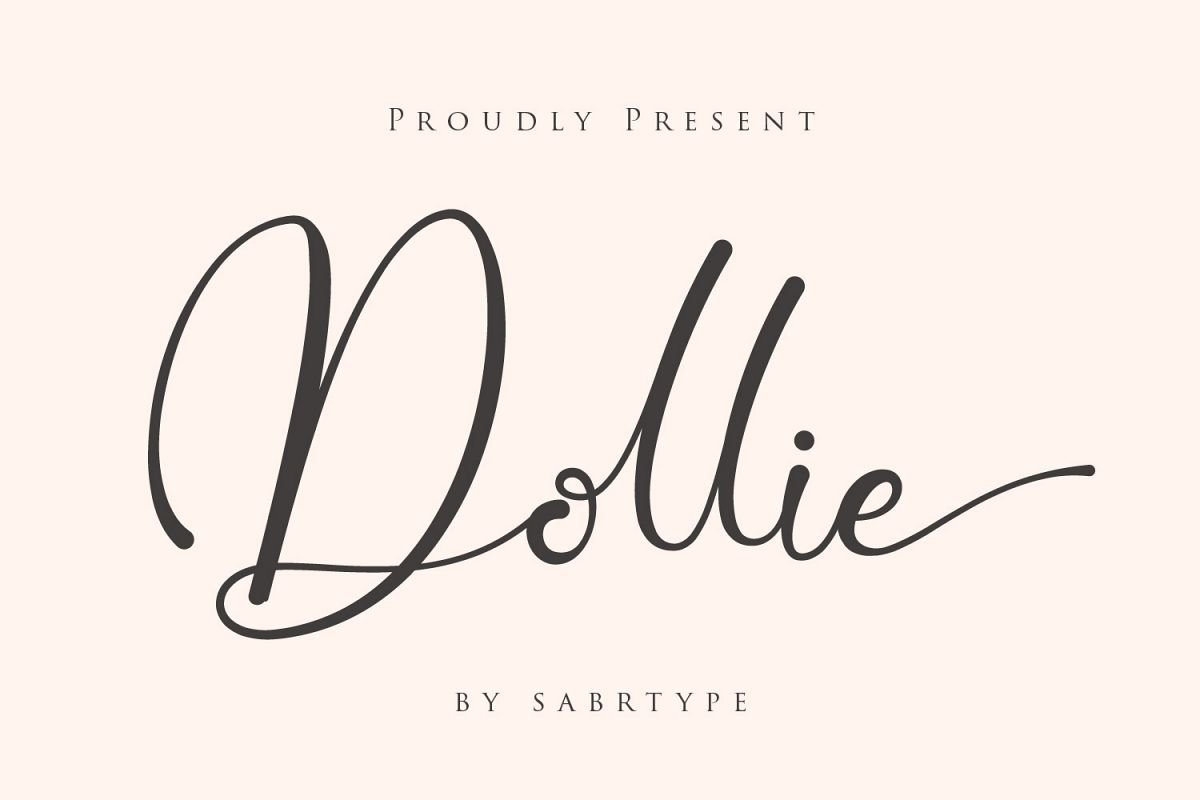
Dollie Font is perfect for many different project such as
logos & branding, invitation, stationery, wedding designs, social media
posts, advertisements, product packaging, product designs, label, photography,
watermark, special events or anything, quotes, fashion, etc...
Foreign languages support: ÀÁÂÃÄÅÆÇÈÉÊËÌÍÎÏÐÑÒÓÔÕÖØÙÚÛÜÝßàáâãäåæçèéêëìíîïðñòóôõöøùúûüýÿ